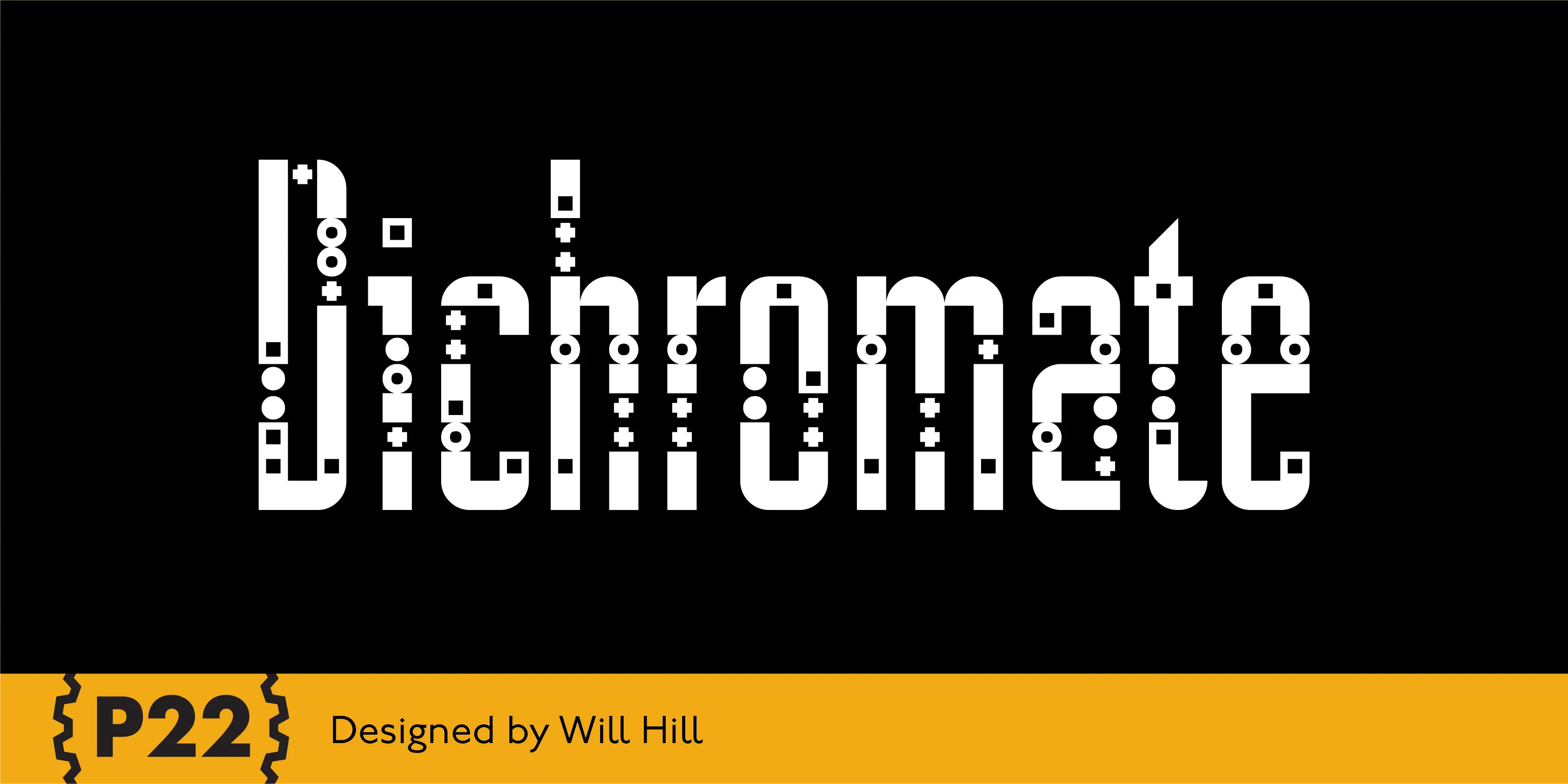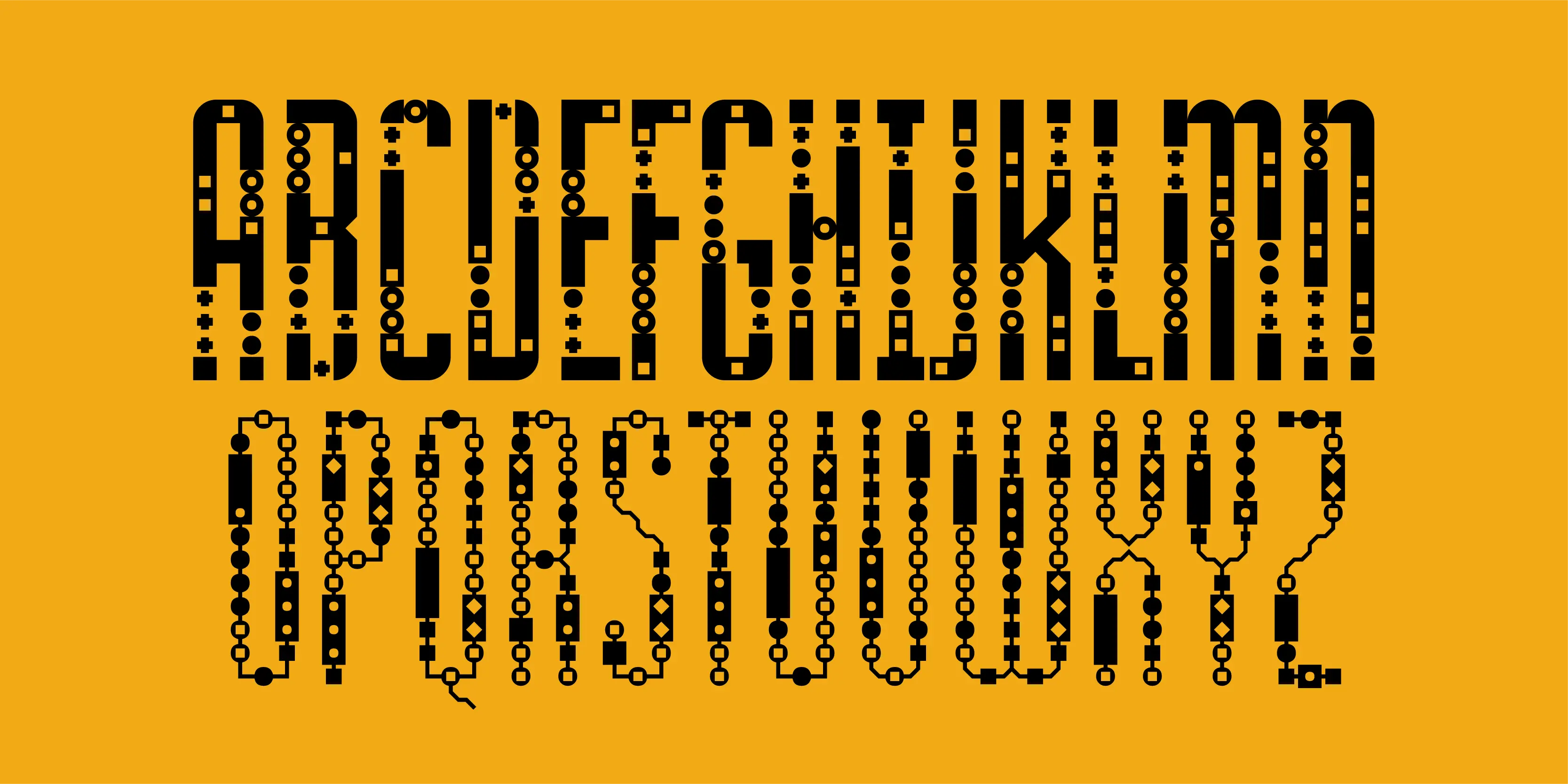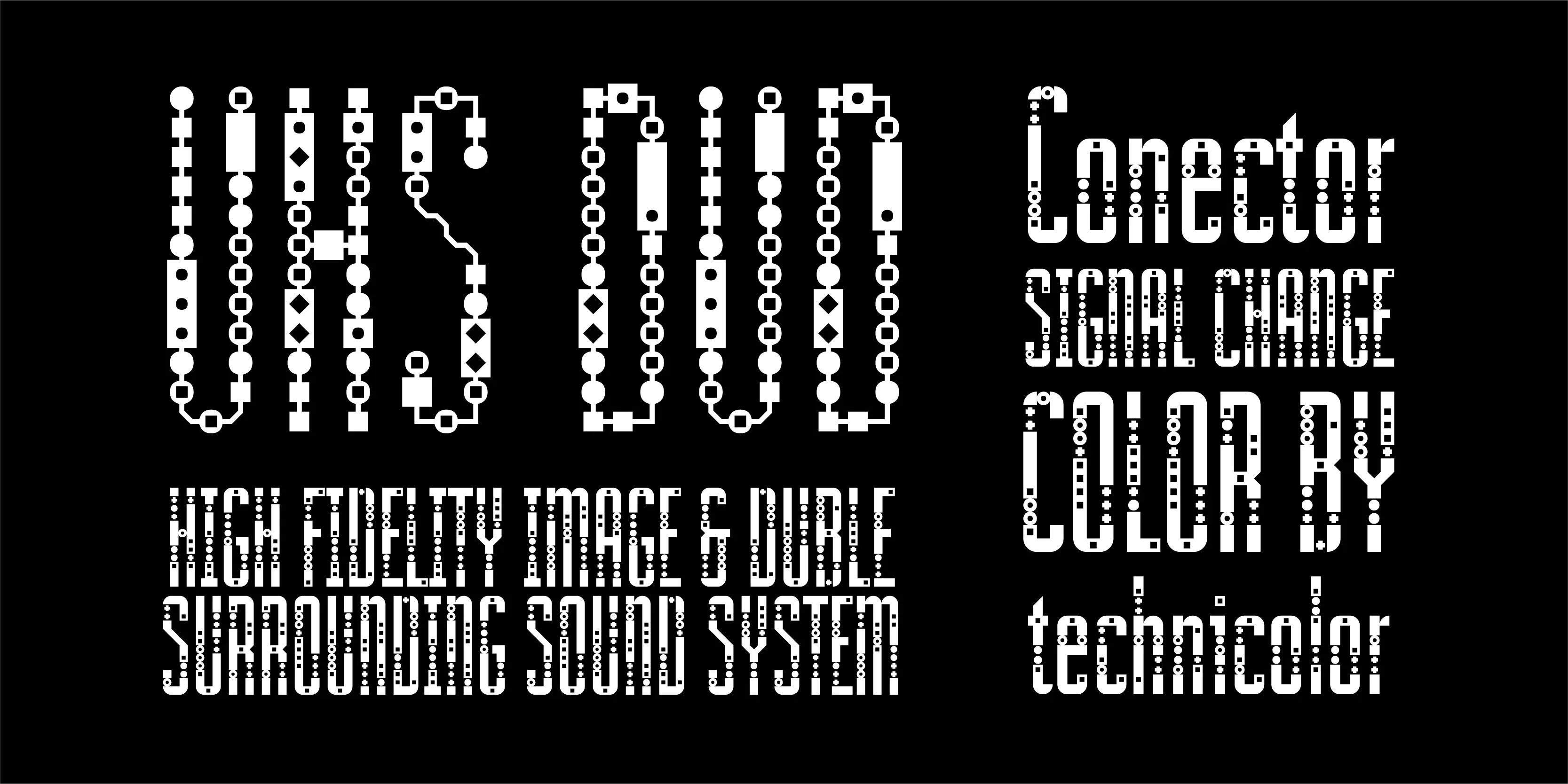
Dichromate Fonts
Dichromate A
Dichromate B
Dichromate
Dichromate is a modular-based display font system from UK based designer/writer Will Hill. This display typeface is comprised of two ‘interlocking’ fonts. These may be used independently as eccentrically broken designs, or overlaid enabling the two sets of the letter-shapes to combine to create chromatic color combinations.